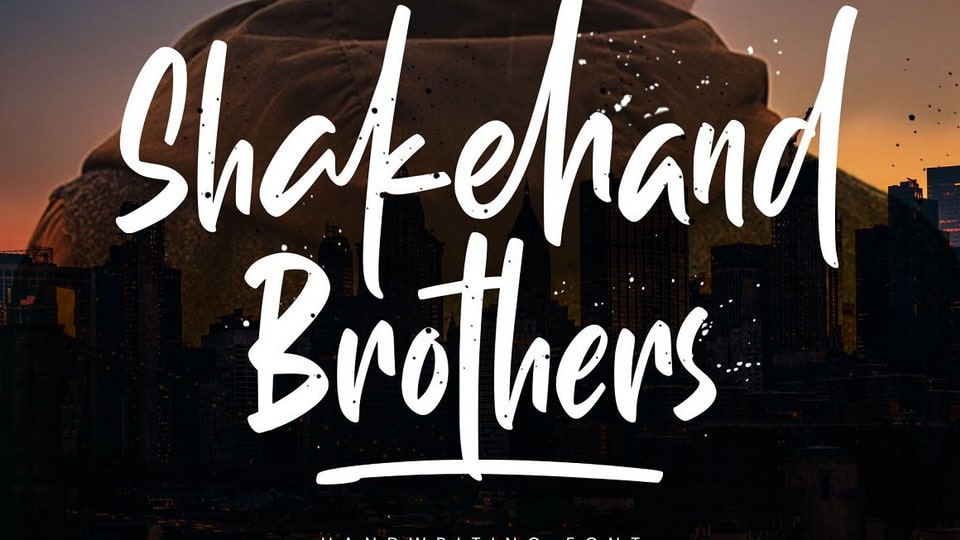
Download Shakehand Brothers font, a playful handwritten typeface created with so much fun and solid brush. Shakehand Brothers font offers a super cool typographic design for your project because the letterform is so natural and unique.